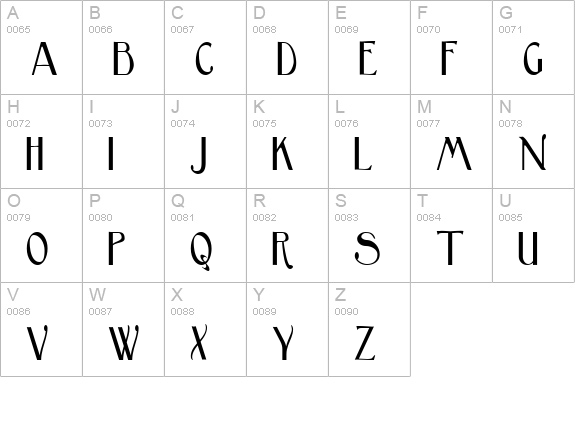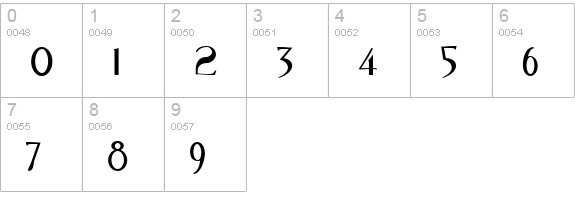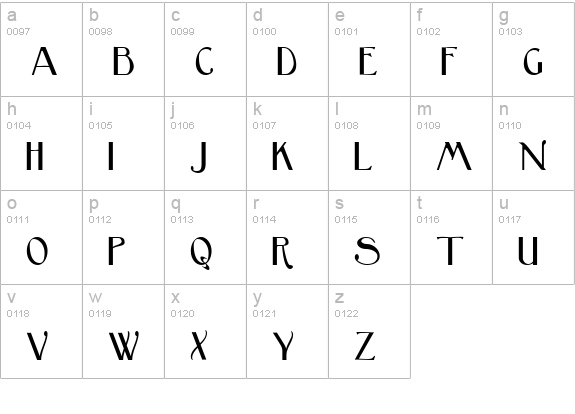
Birmingham Sans Serif font is a modern and versatile typeface that effortlessly combines elegance with functionality. With its clean lines and balanced proportions, this font is perfect for a wide range of design projects, from branding to web design to editorial layouts. The Birmingham Sans Serif font features a full character set with both uppercase and lowercase letters, as well as numbers and punctuation marks. Its sleek and professional appearance makes it ideal for conveying a sense of sophistication and professionalism in any design. Best of all, Birmingham Sans Serif font is available for free download at FontsMarket.com. This means that you can easily access this high-quality font without any cost, making it a valuable addition to your font library. Whether you're a seasoned designer or just starting out, Birmingham Sans Serif font is sure to elevate your projects and help you achieve stunning results.